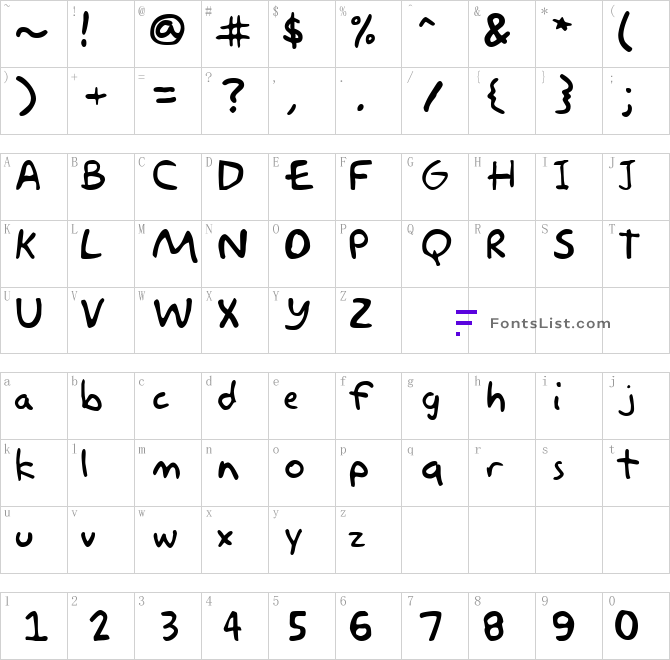
- Font Name:Akbar
- Copyright:Adapted by Jon Bernhardt in 1996 from the 1991 font by Cowan Design Associates. Based on the famous handwriting of Matt Groening. I added many punctuation characters.